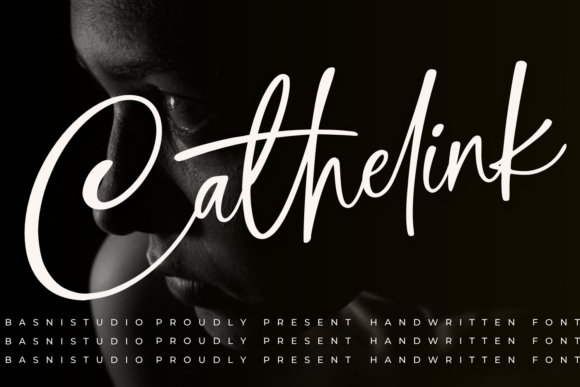
The Perfect Handwritten Touch for Your Designs: Introducing Cathelink
Have you ever been working on a design project, pouring your heart and soul into it, only to hit a roadblock when it comes to finding the perfect font? I know I have. It was a typical Wednesday afternoon when I was brainstorming ideas for a client’s branding project. The client wanted something elegant, yet playful; professional, yet approachable. I scoured the internet for hours, trying out font after font, but nothing seemed quite right. That was until I stumbled upon Cathelink, a beautiful handwritten font that added the perfect touch of sophistication and whimsy to my design.
What Makes Cathelink Special?
Cathelink is more than just a font – it’s a design statement. With its elegant and versatile strokes, it’s perfect for a wide range of applications, from branding and social media to invitations and packaging. Here are just a few things that make Cathelink stand out:
- ✨ Elegant & Versatile – Perfect for logos, quotes, greeting cards, and more
- ✅ Authentic Handwritten Feel – Created with real pen strokes for a natural look
I’ve had the chance to work with Cathelink on several projects, and here’s my honest review:
- 💕 The unique and authentic handwritten feel that adds a touch of personality to any design
- 🌈 The range of OpenType features, including stylistic alternates and glyphs, that allow for endless creativity
- 🤔 Some users may find the font a bit too ornate for certain projects, such as minimalist designs or body text
- ⚠️ The font may not work well with very small font sizes, as some details may get lost
The Designer Inspiration Behind Cathelink
Cathelink was inspired by the beautiful, handwritten fonts of the past. The designer behind Cathelink wanted to create a font that captured the elegance and sophistication of traditional calligraphy, while still feeling modern and fresh. With its unique and authentic handwritten feel, Cathelink is the perfect choice for designers who want to add a touch of personality to their designs.
Q: What is Cathelink?
A: Cathelink is a beautiful, handwritten font that adds an elegant and versatile touch to any design.